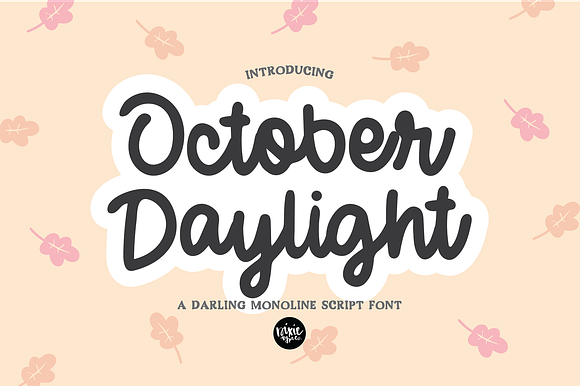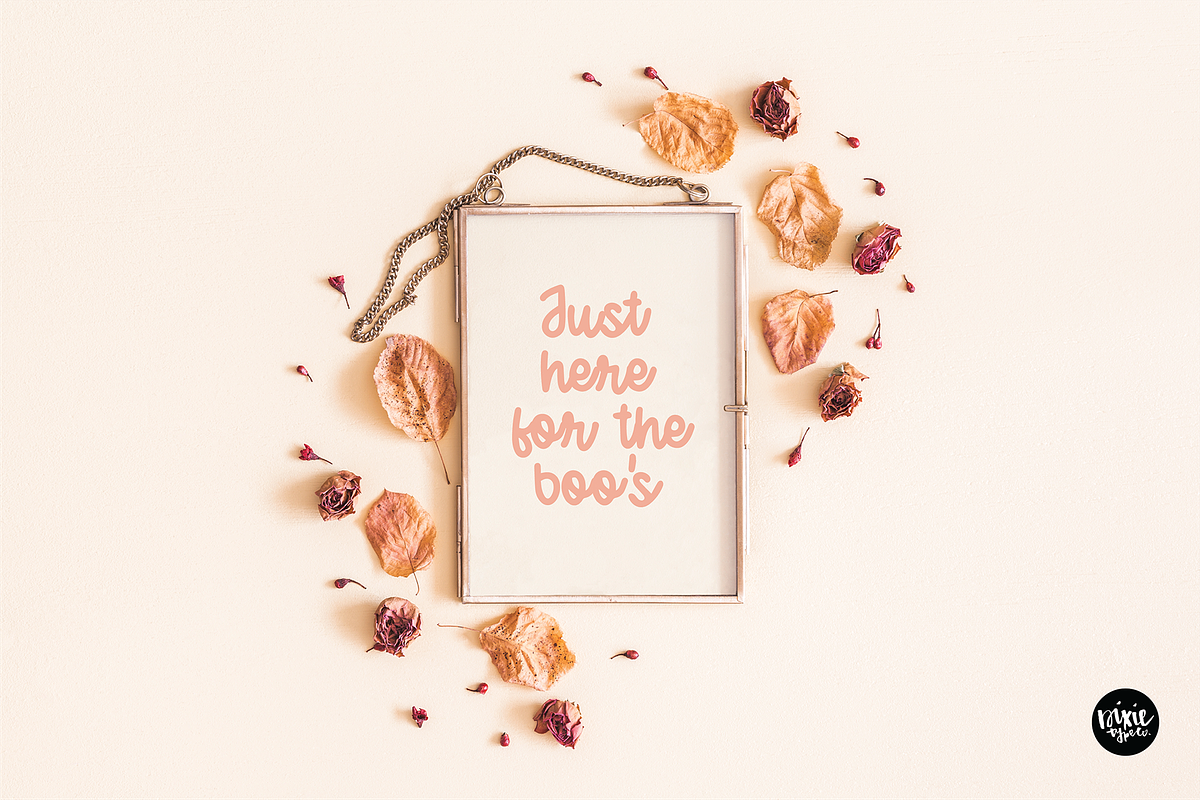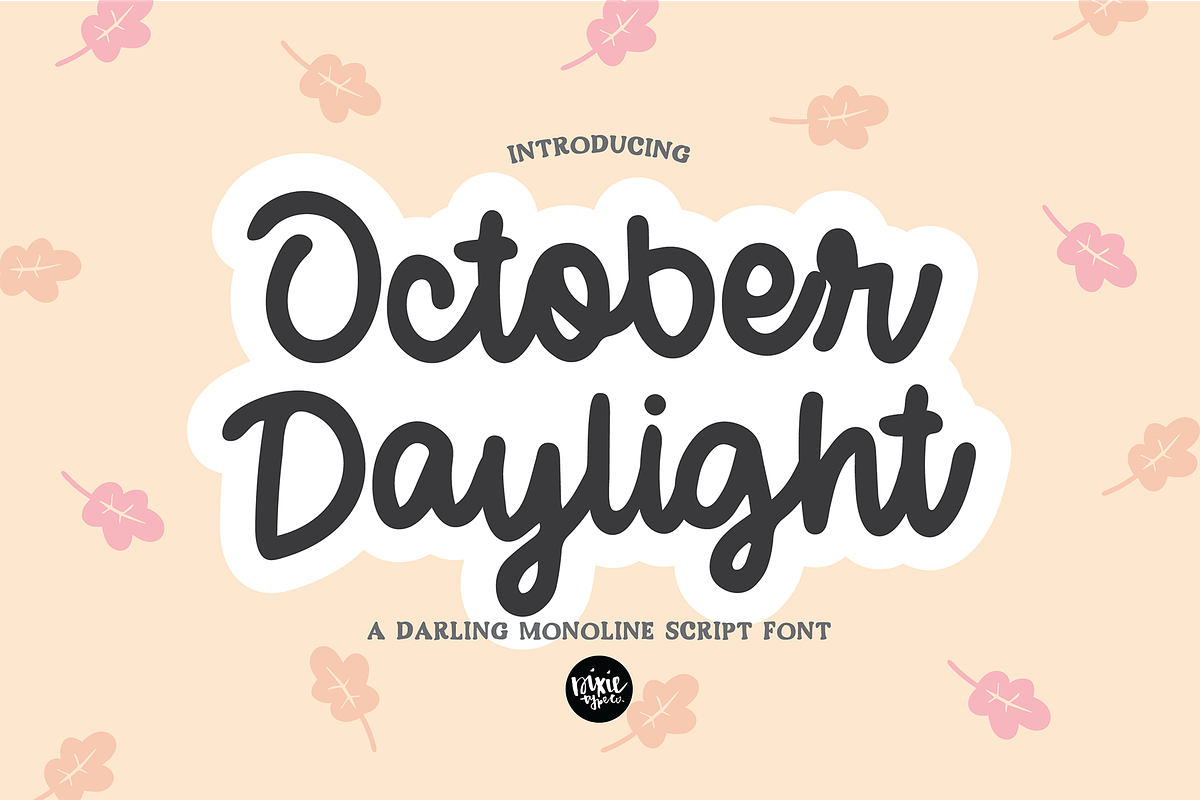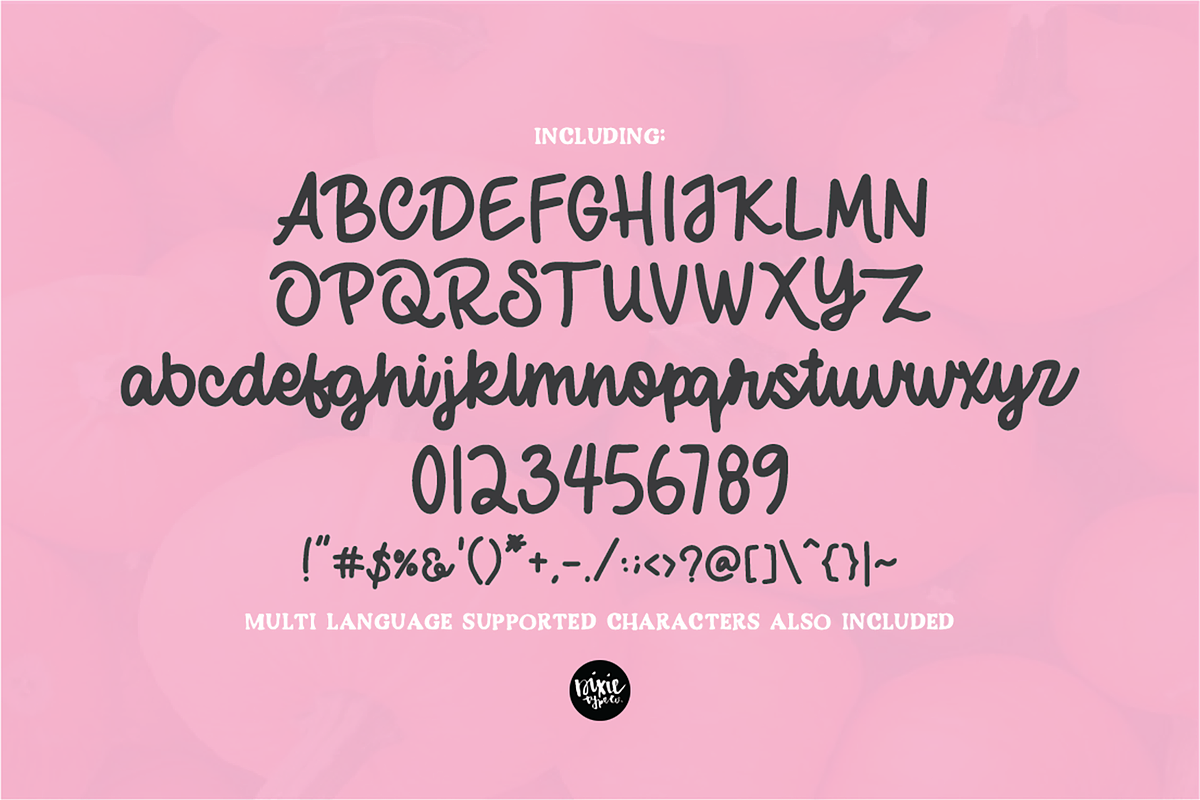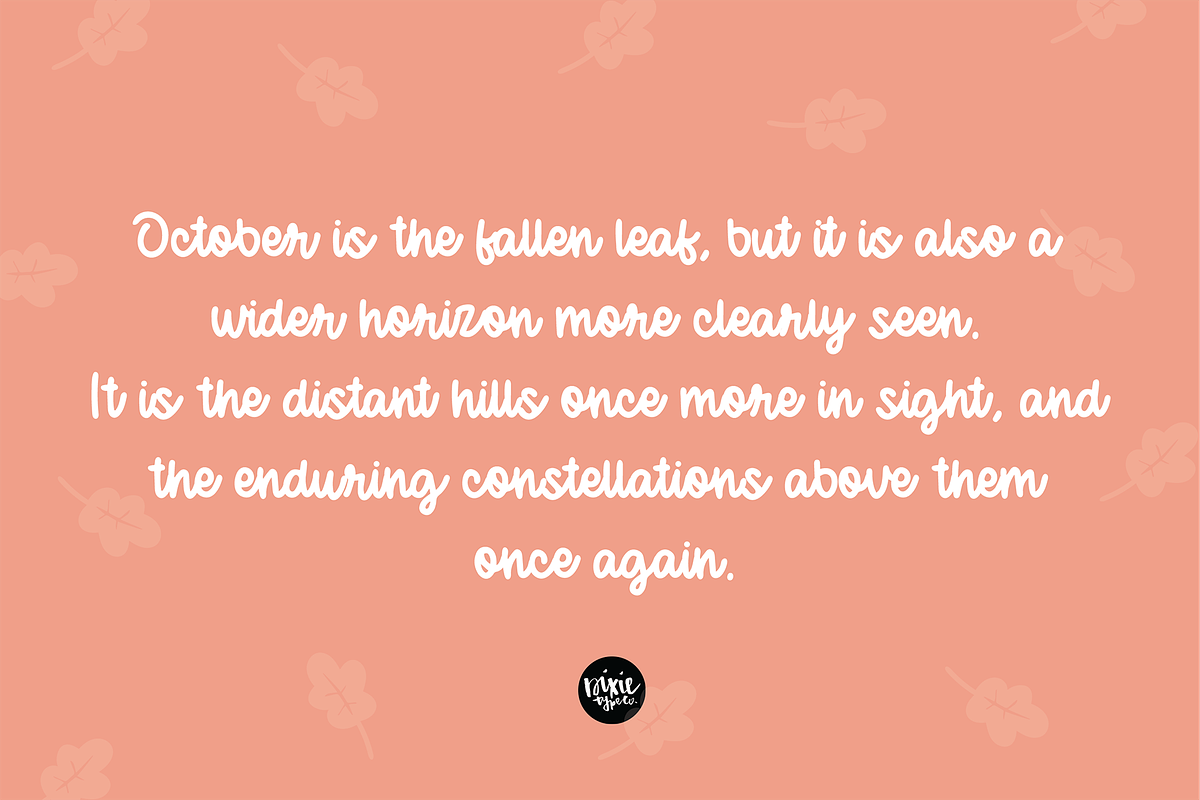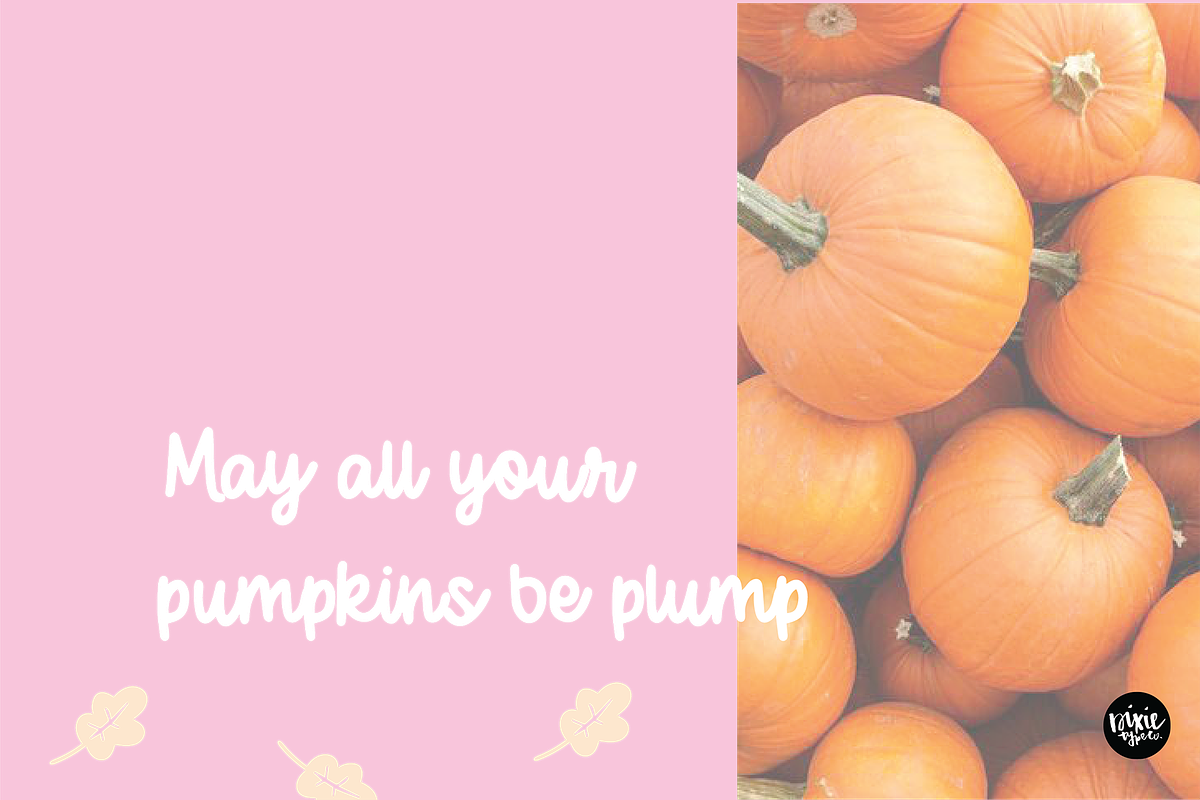
OCTOBER DAYLIGHT a Bold Script Font
"October Daylight" bold hand lettered script font.
{ Typographic script font hand lettered with love by Dixie Type Co. }
A hand lettered cursive font including all upper and lowercase letters, basic punctuation, and numbers. Thus font also includes language support of the following characters: ÁÂÃÄÅÇÐÈÉÊËÌ Í Î Ï ÑØÒÓÔÕÖÙÜÚÛẂŴẄẀÝỲáâãäåçèéêëì í î ï ñøòóôõöùüúûŵýỳ